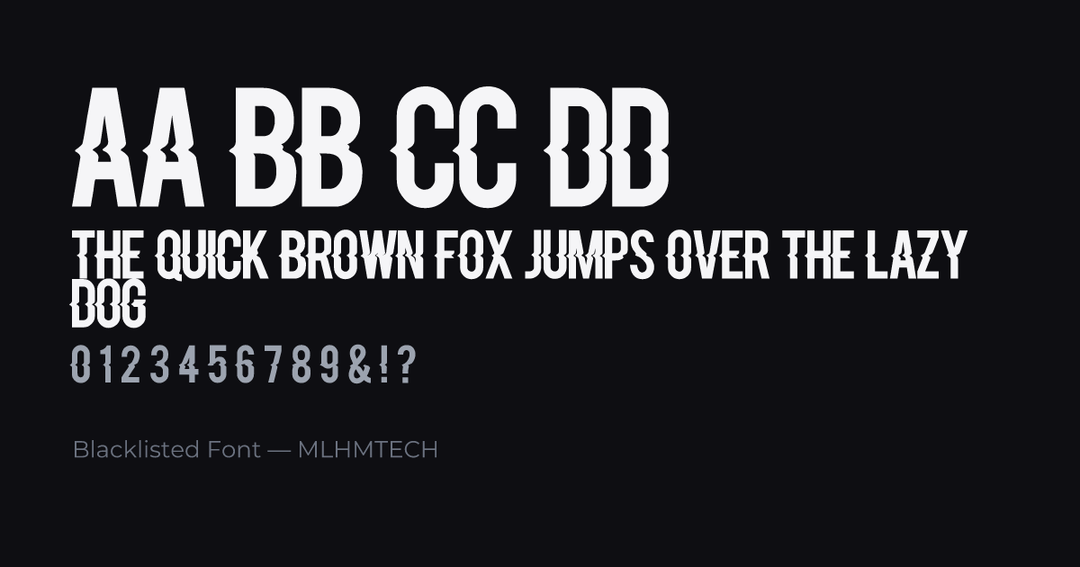
Blacklisted Font
Blacklisted is a bold, edgy display font that adds a grunge or rebellious feel to your designs. Ideal for posters, logos, and social media graphics.
Blacklisted is a high-impact display font with a raw, hand-drawn aesthetic. Its thick strokes and irregular edges give it a gritty, urban look that stands out in headlines and branding.
This font is perfect for projects that need a touch of attitude, such as music posters, streetwear logos, or event flyers. It pairs well with clean sans-serifs for contrast.